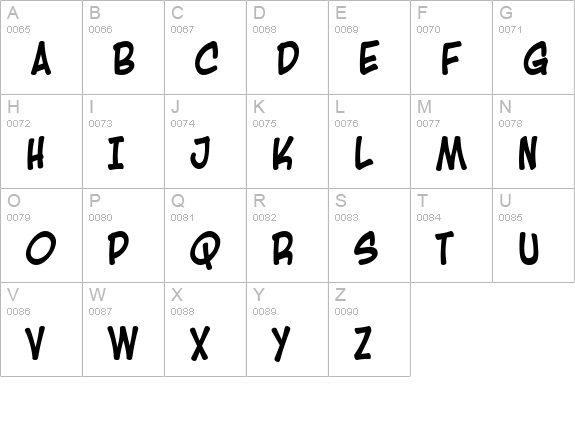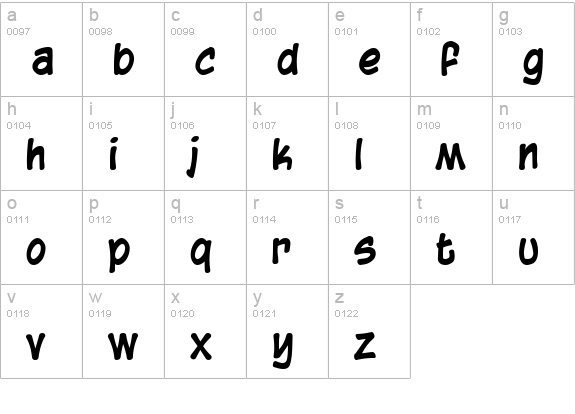
Blambot Casual Bold is a strong, high-contrast variant in the Blambot typeface family \xE2\x80\x94 well suited to headlines, attention-grabbing titles, and strong calls-to-action.
Blambot Casual Bold font is a versatile and modern typeface that exudes a sense of casual elegance. Its bold and rounded design makes it perfect for a variety of design projects, from branding to social media graphics. With a friendly and approachable appearance, this font is sure to grab attention and make a statement. Best of all, Blambot Casual Bold font is available for free download at FontsMarket.com. This means you can easily access this stylish and eye-catching font for your projects without any cost. Whether you're a designer looking to add a touch of flair to your work or a business owner wanting to freshen up your branding, Blambot Casual Bold font is a fantastic choice that won't break the bank. Download it today and see how it can elevate your designs to the next level!